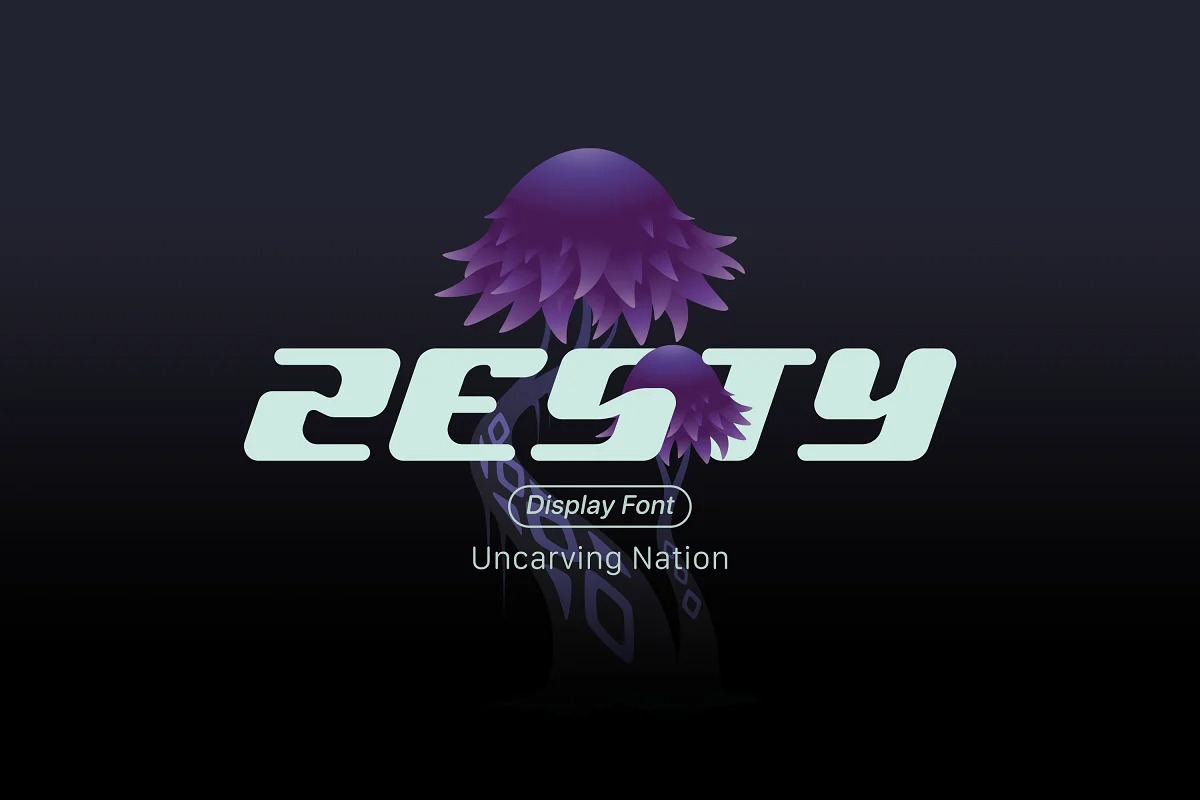
Zesty Font
Zesty Display Font
This is strong font was designed to draw attention and highlight any project that requires a bold feel, look powerful, created to add a vibrant touch to your sport-inspired designs.
Inspired by the modern bold theme with italic touch keeping the simplicity and unique shapes, great for use in your projects related to gaming, future tech, space travel, virtual reality & much more!